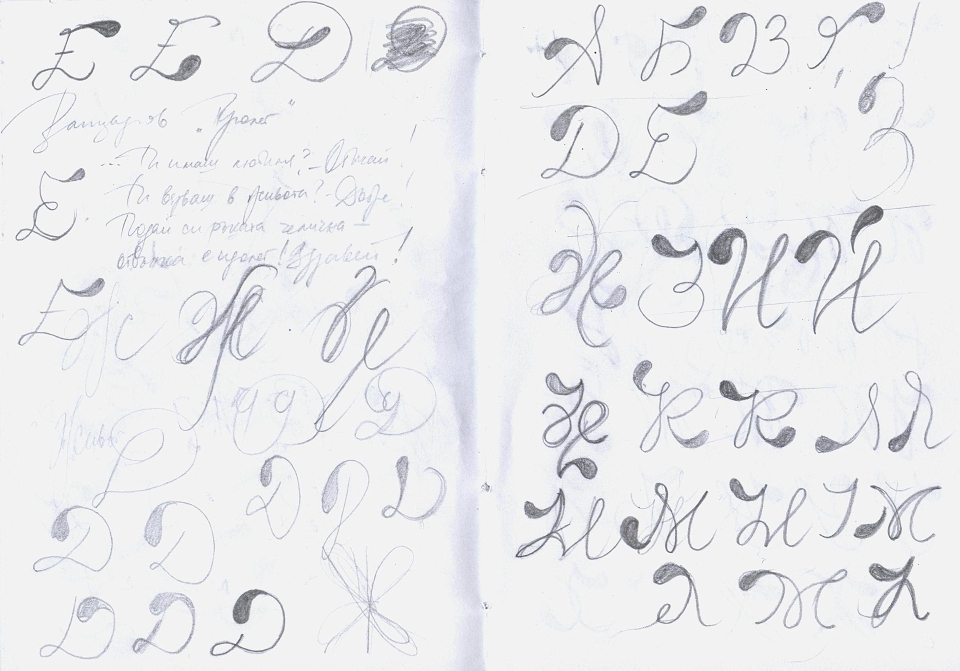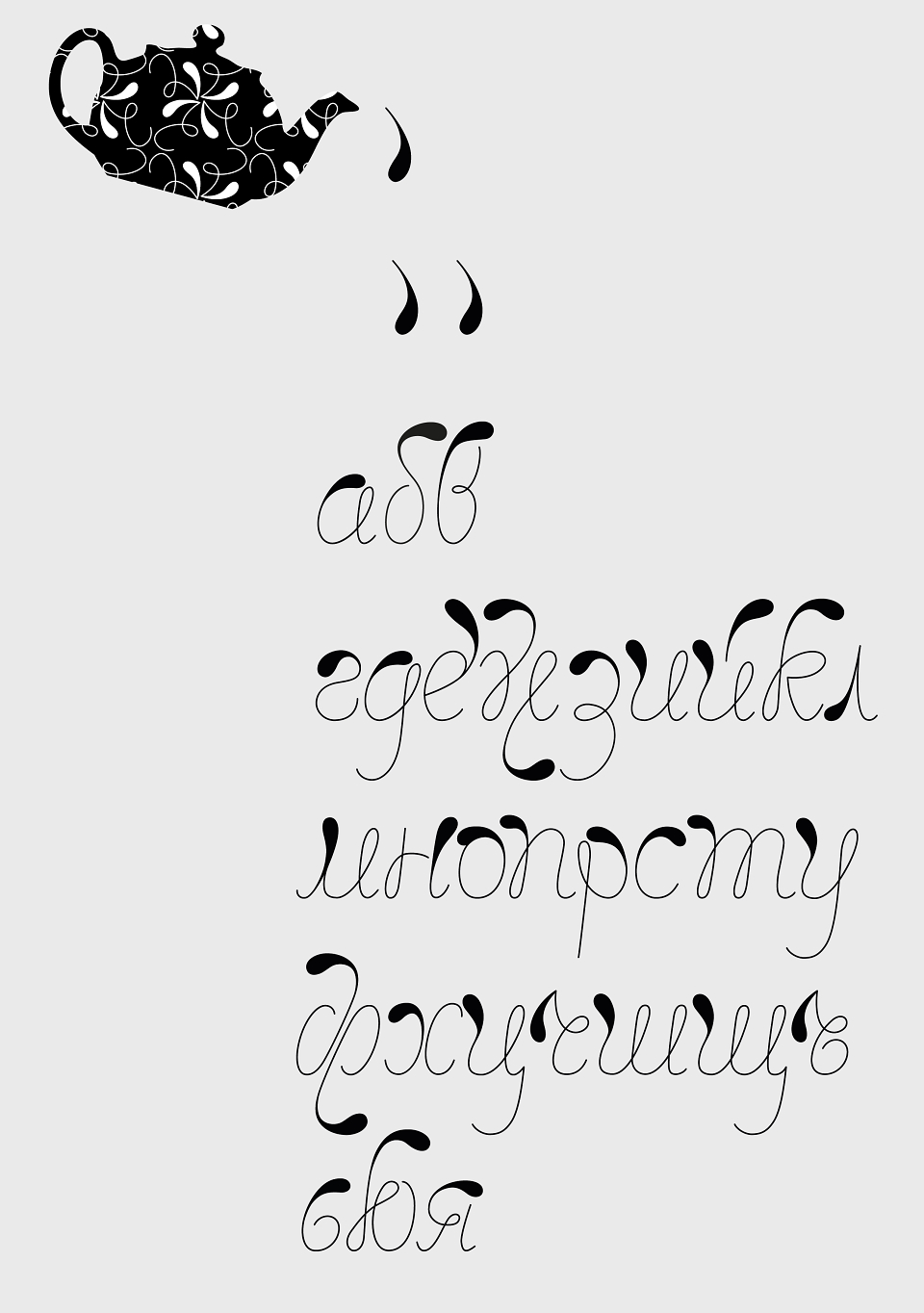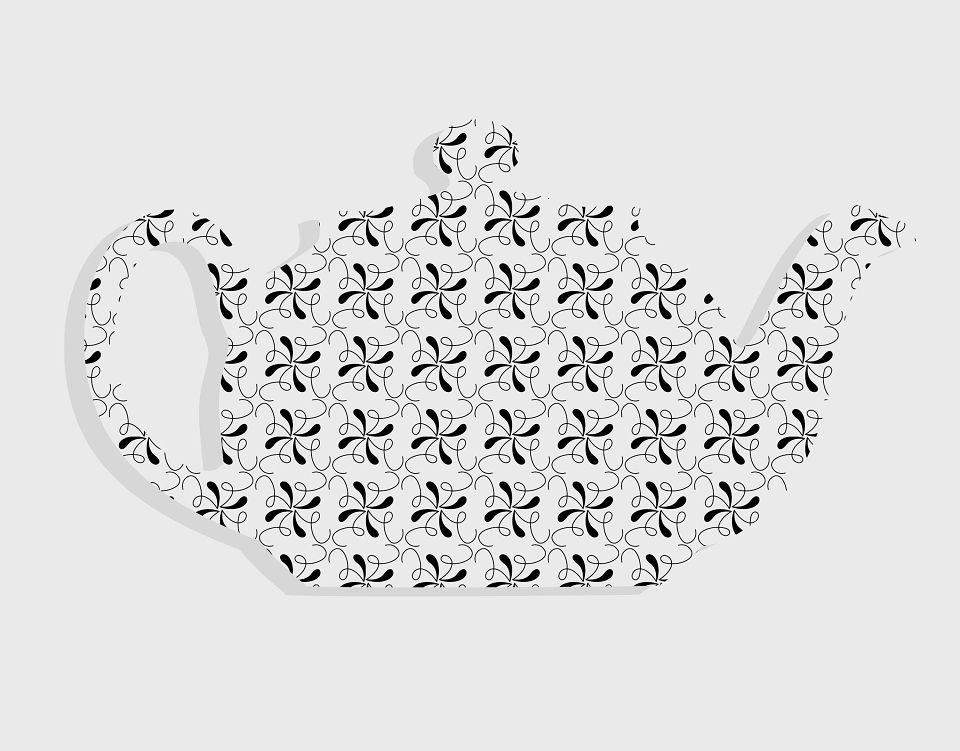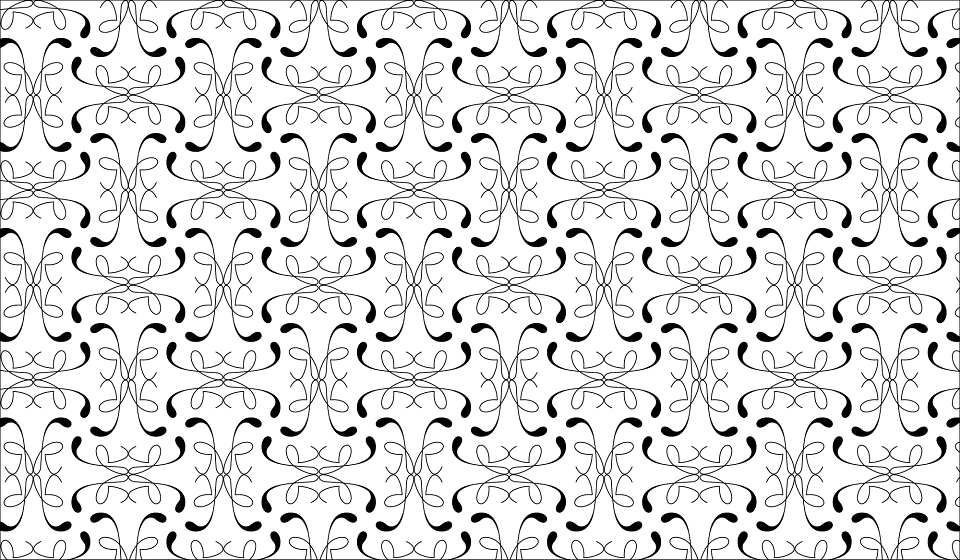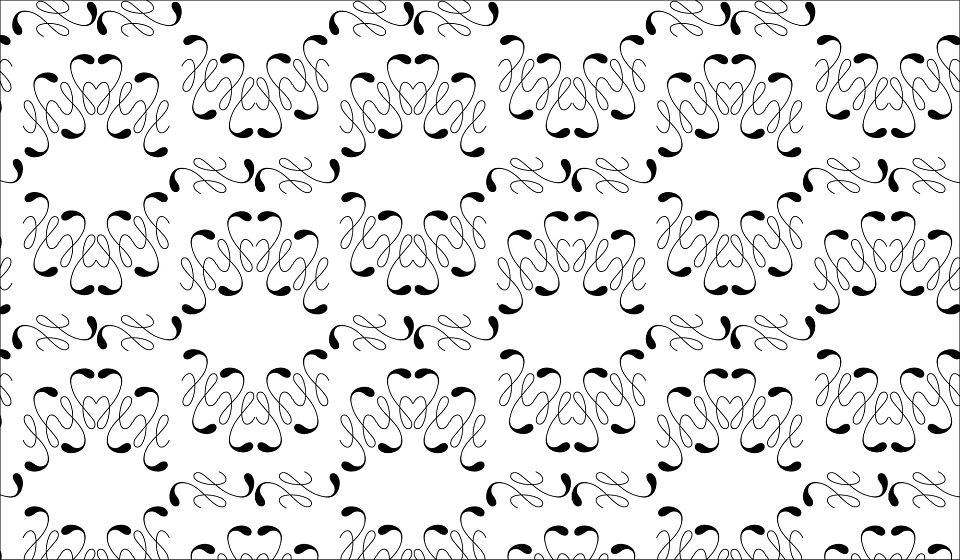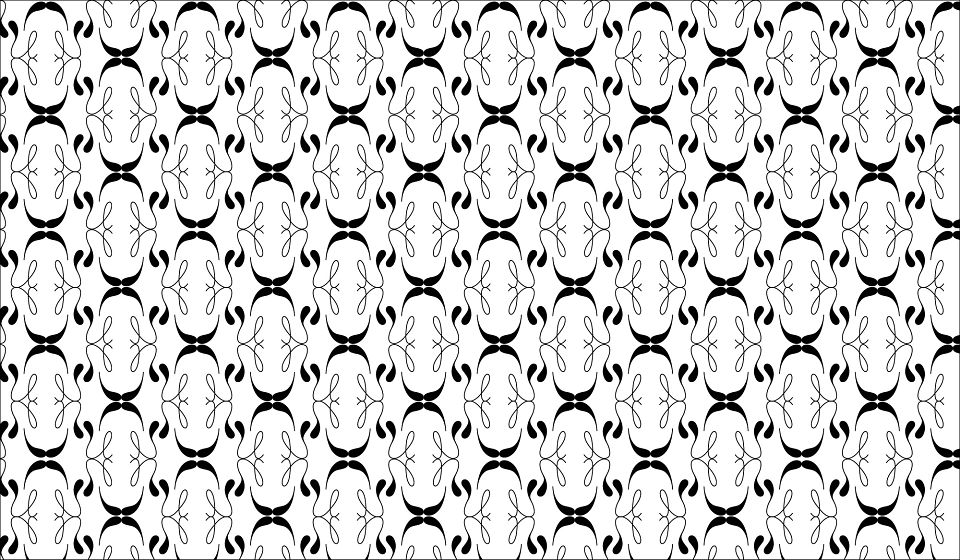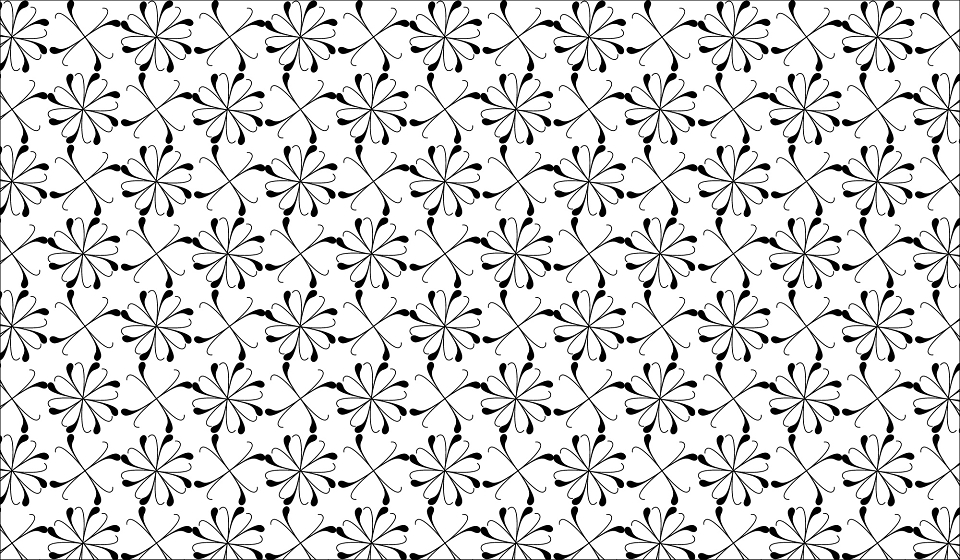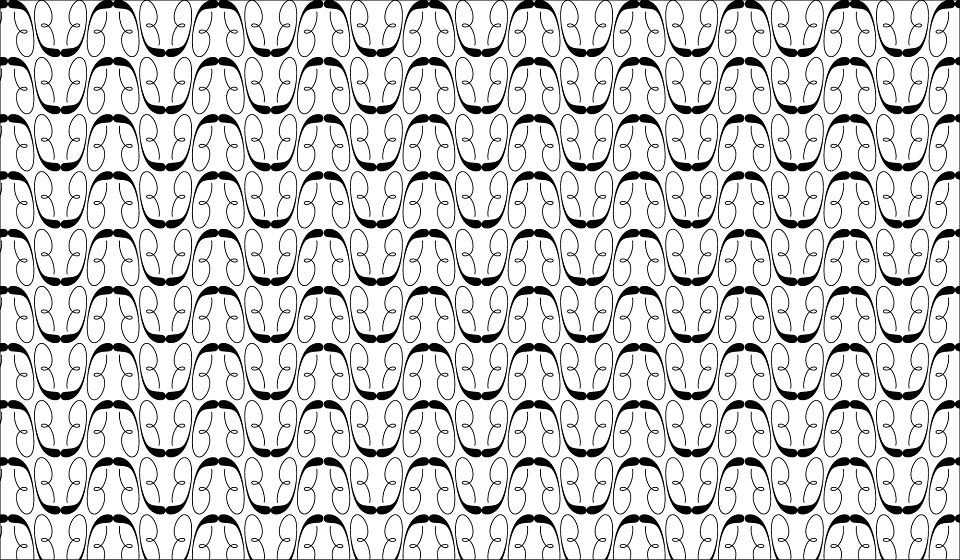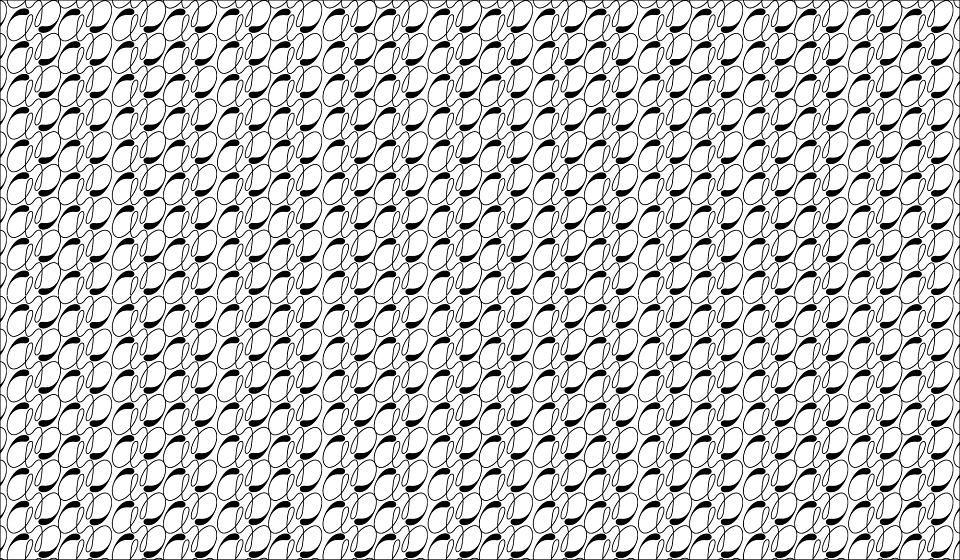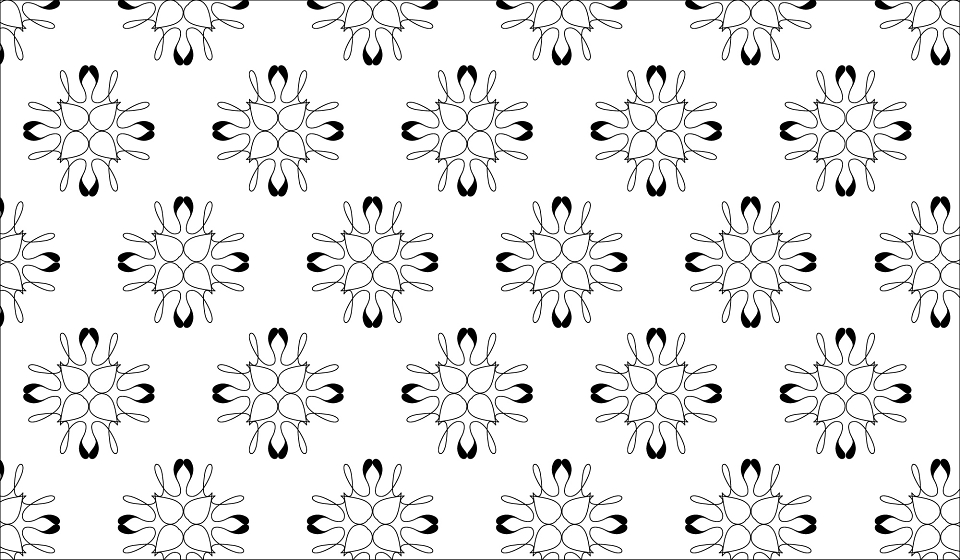
A cyrillic lowercase decorative typeface.
In bulgarian "Chai" (чай) means "Tea". The "ball terminal" or the "ear" of a letter is called "drop" in bulgarian. In my type project a basic place takes exactly this "drop". It appears in all the letters and like a water, lightly curves to form the cyrillic typographic signs.
The whole type picture is similar to knitted lace. Each word is a melodious composition of deep spots and thin like a cobweb lines. In this way, with different combinations and compositions, I generated decorative patterns.
This led to the making of a little book with selected patterns, each made of only one of the letters of the bulgarian alphabet. So in the book are presented 30 patterns. They are used for wrapping papers, covers, wallpapers, fabric etc.
Chai typeface